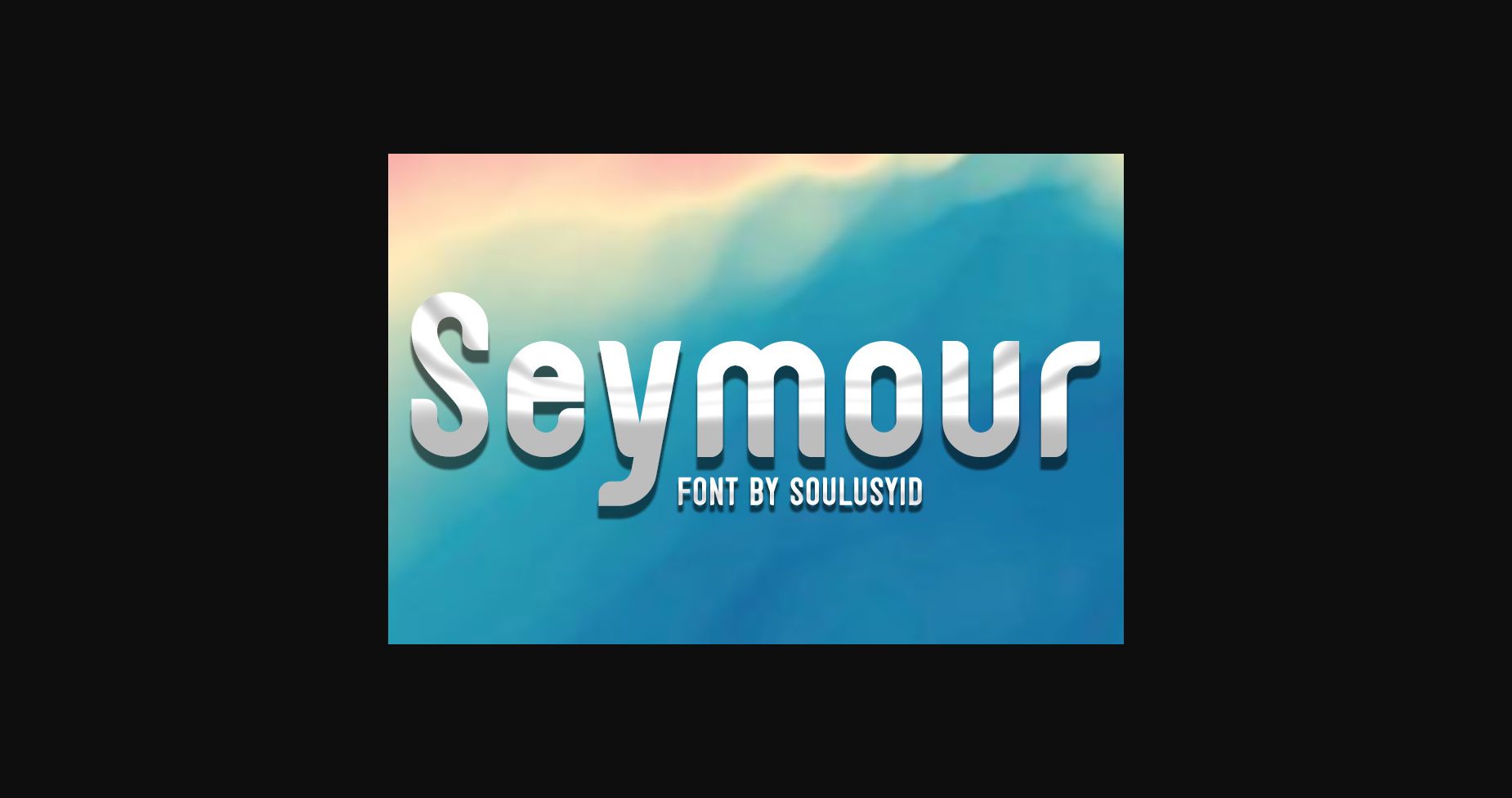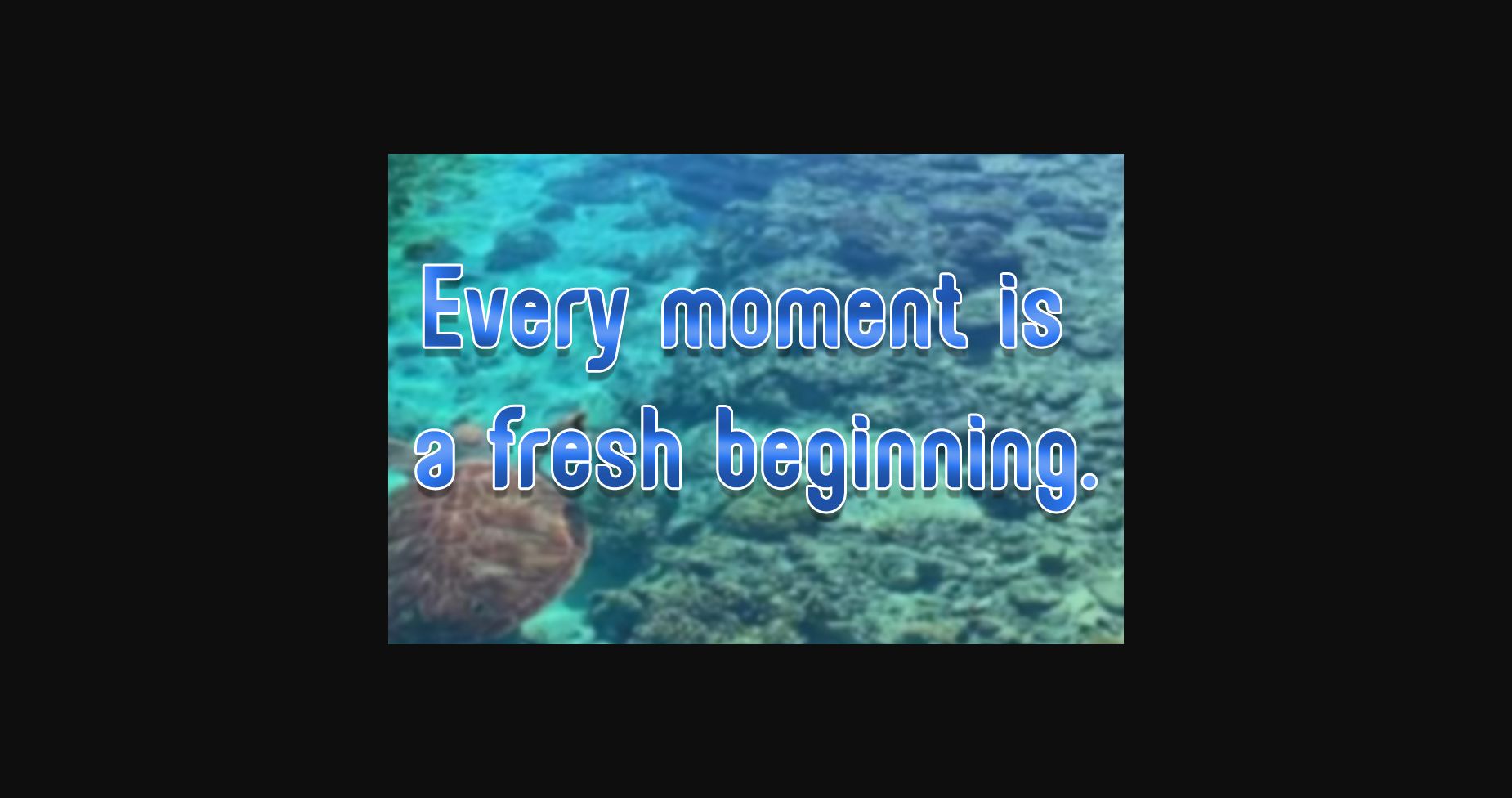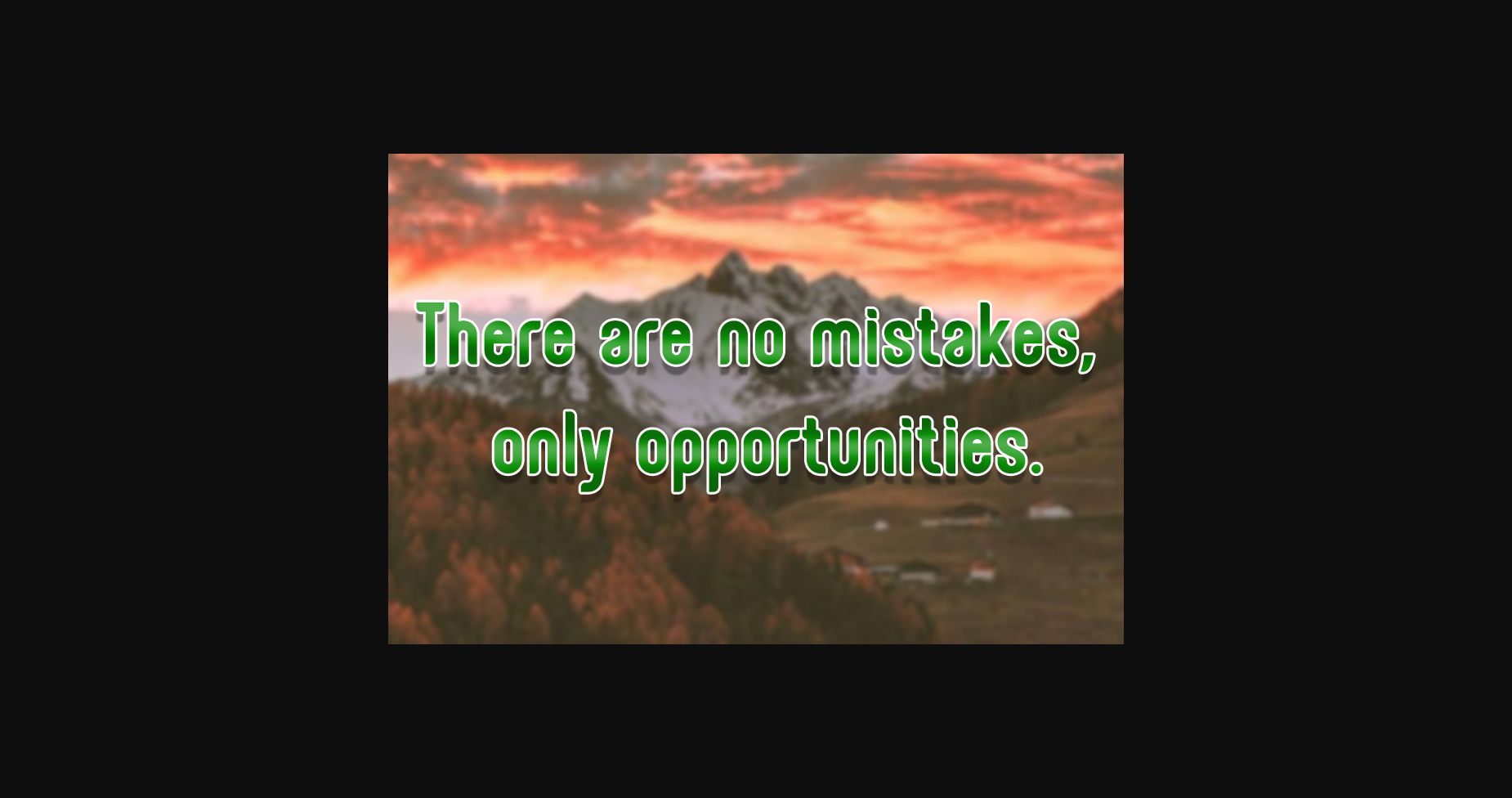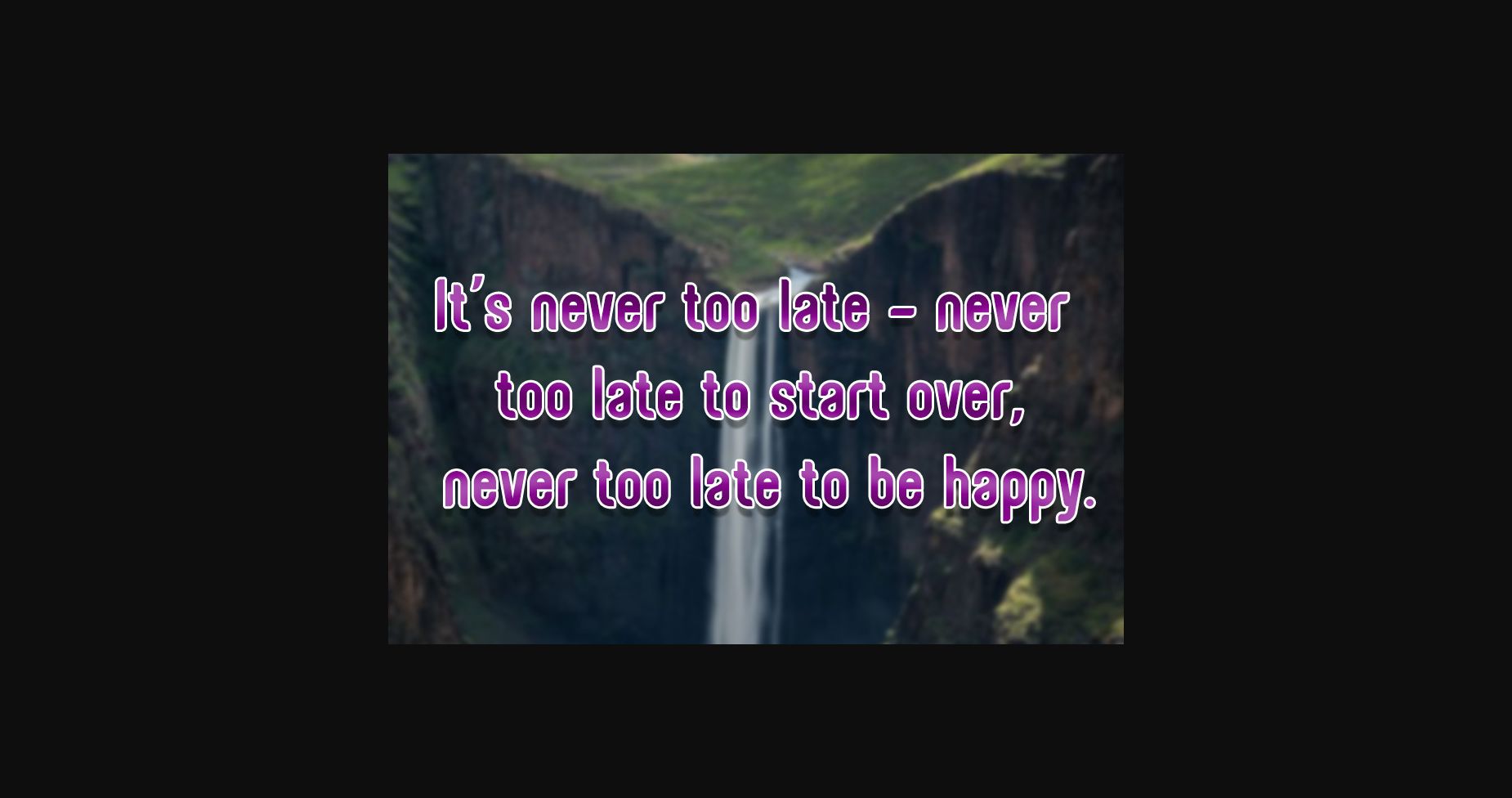
About Seymour Font
Seymour font features clean lines and a minimalist design, making it the perfect choice for headlines and short titles. Its bold style adds impact to your design, while its glowing letter maintains a professional and sophisticated look.